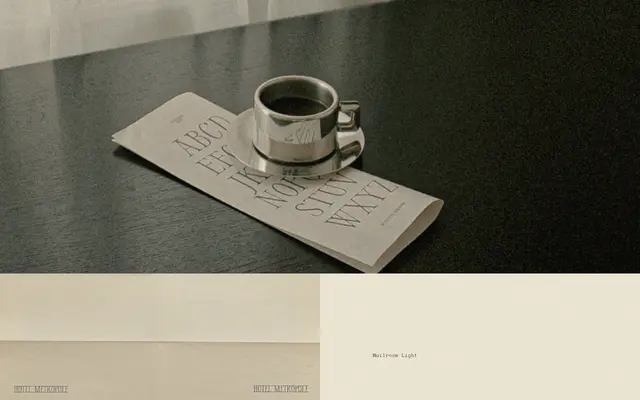
A display family from Old City Mailroom with a standard and Romance variant, built around expressive letterforms and a bespoke glyph set.
The family ships in Light and Regular weights, with a Romance subfamily in the same two weights and a standalone Glyphs cut for ornamental use. The combination of a Romance variant and a dedicated Glyphs font suggests a typeface oriented towards editorial, branding or packaging work that calls for personality over neutrality. Little technical detail is available on the page, but the structure points to a boutique display offering with decorative ambitions.
The family includes a Romance variant and a Glyphs cut alongside standard weights, suggesting a decorative, expressive display typeface rather than a text workhorse.